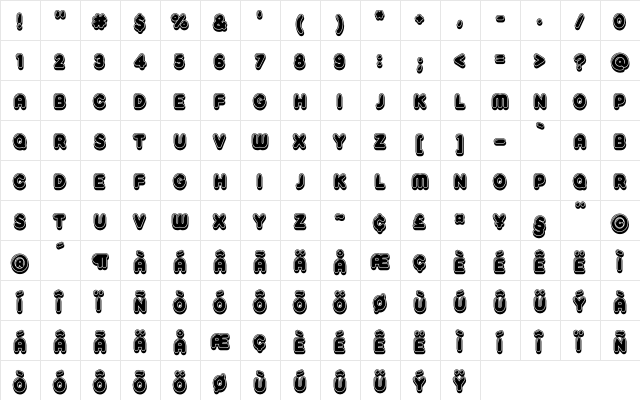
Complete Reglisse Regular glyph index. Displaying only characters natively supported by Reglisse Regular font.
Reglisse is a composed and adaptable typeface that performs quietly and consistently across a wide range of design contexts.
Who designed the Reglisse Regular font?